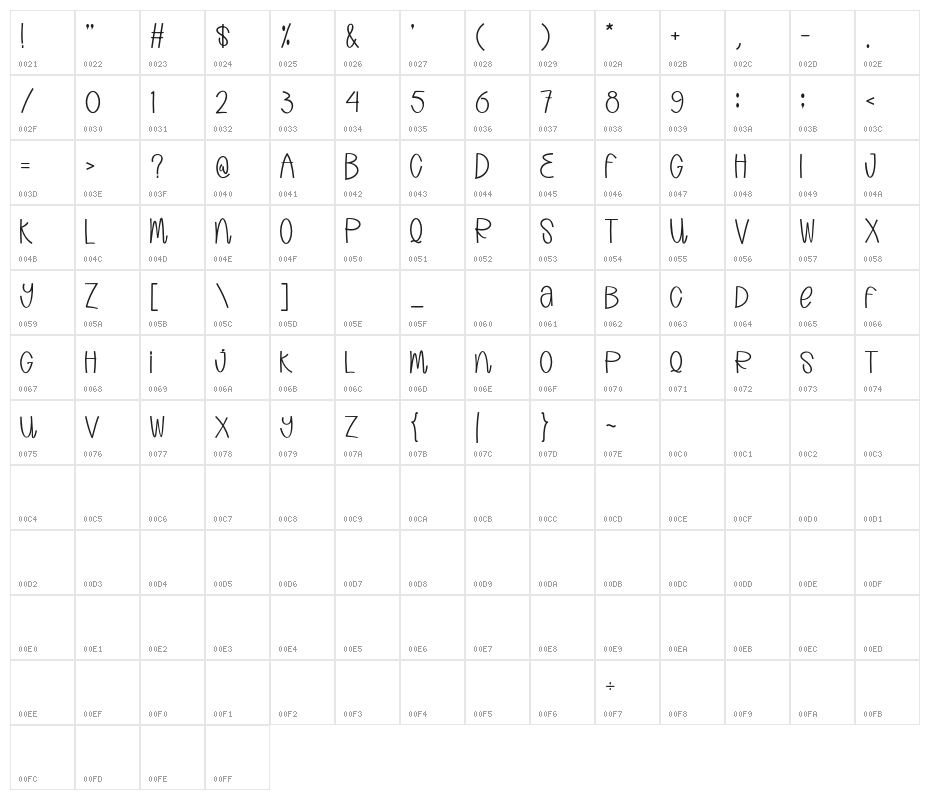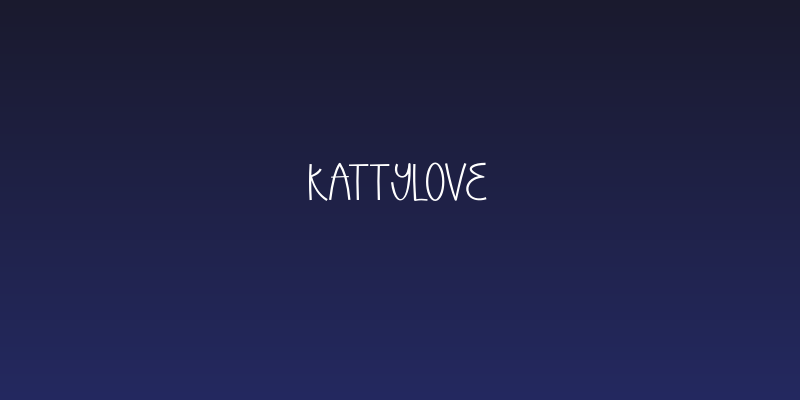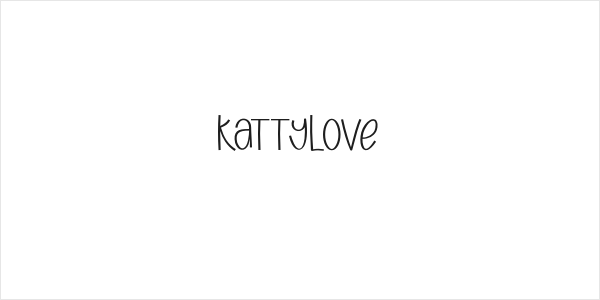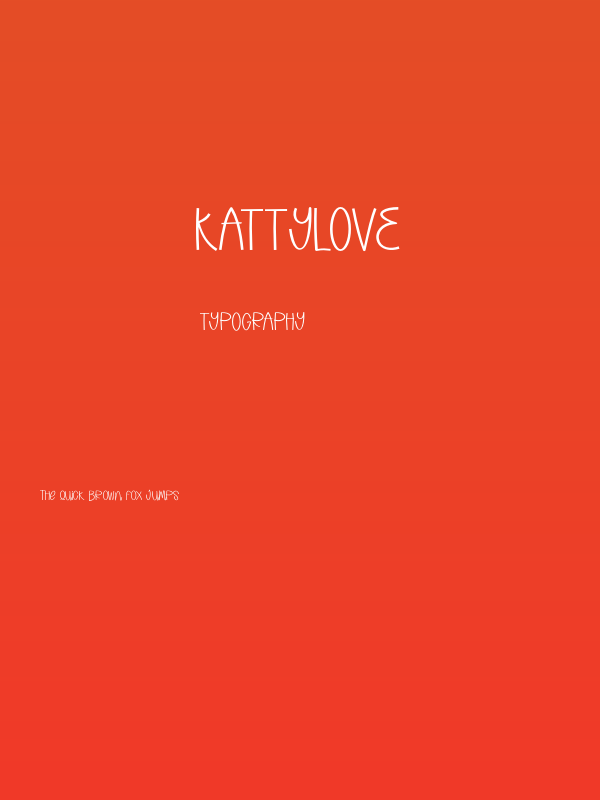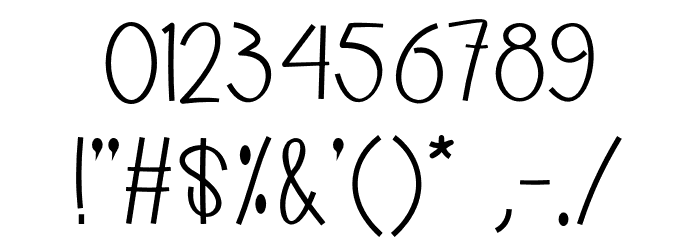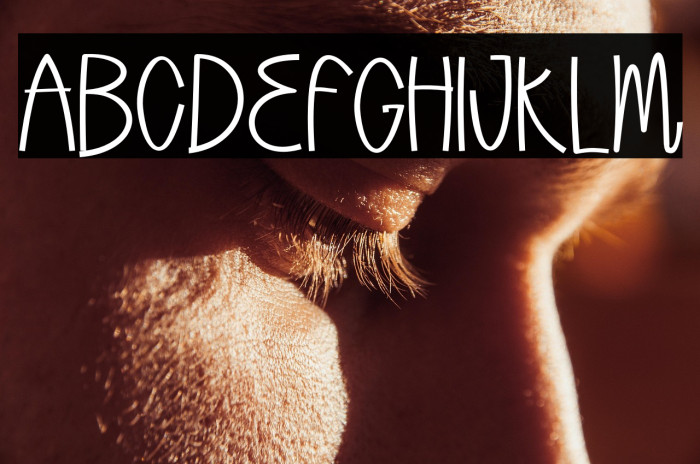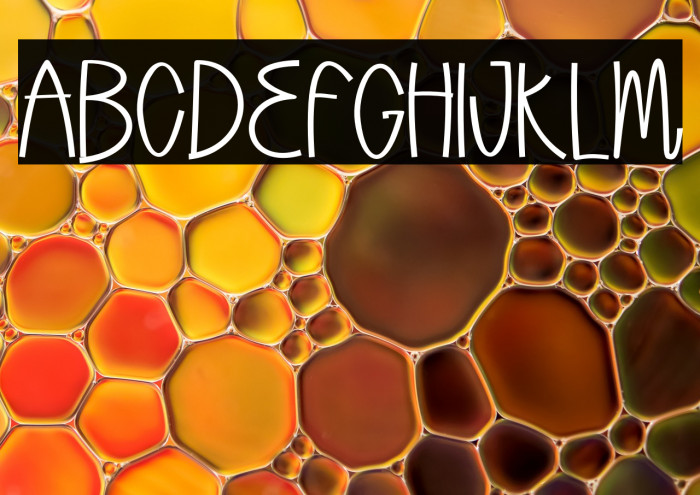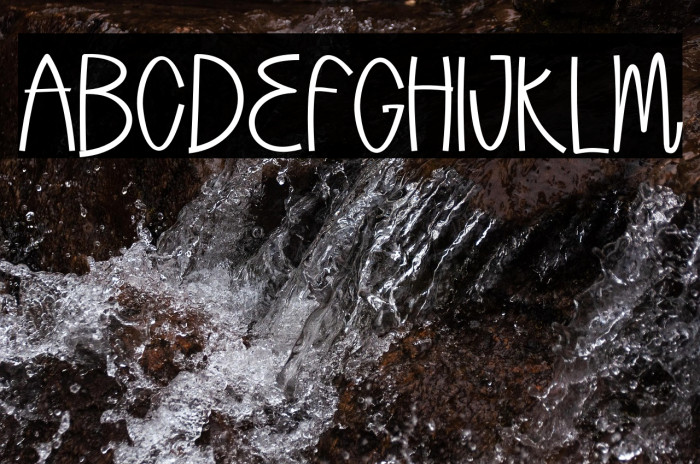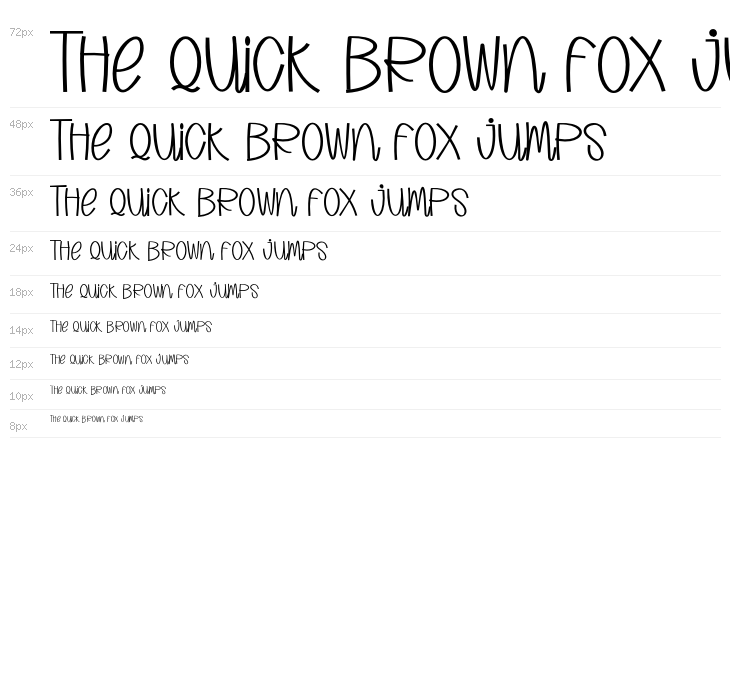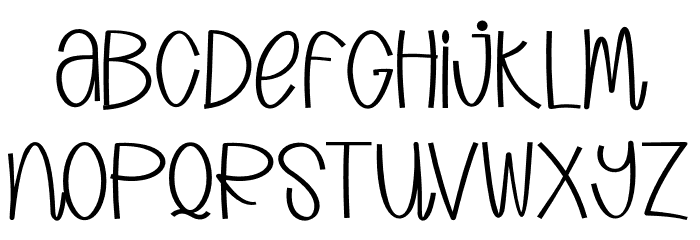
KattyLove Font
KattyLove Description
This playful and whimsical font features a handwritten style with a casual and friendly appearance. The characters are slightly elongated with a consistent stroke width, giving it a uniform look. The uppercase and lowercase letters maintain a cohesive style, with rounded edges and a slight slant that adds to its informal charm. The numerals and special characters are designed to match the overall aesthetic, ensuring a harmonious look across all text. This font's unique personality makes it ideal for projects that require a touch of fun and creativity.
| Use Case | Logos, Headlines, Informal Text |
| Proposed Projects | Great for greeting cards, children's books, playful branding, and social media graphics. |